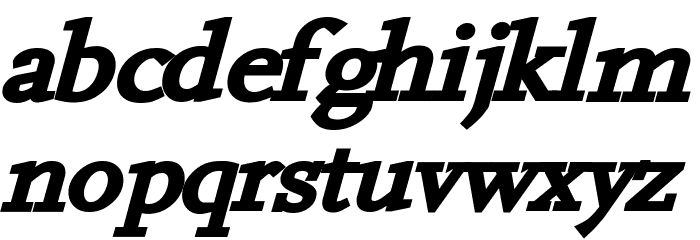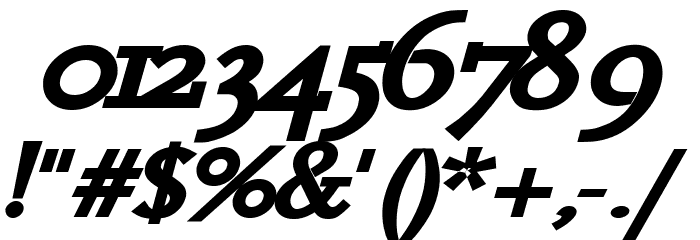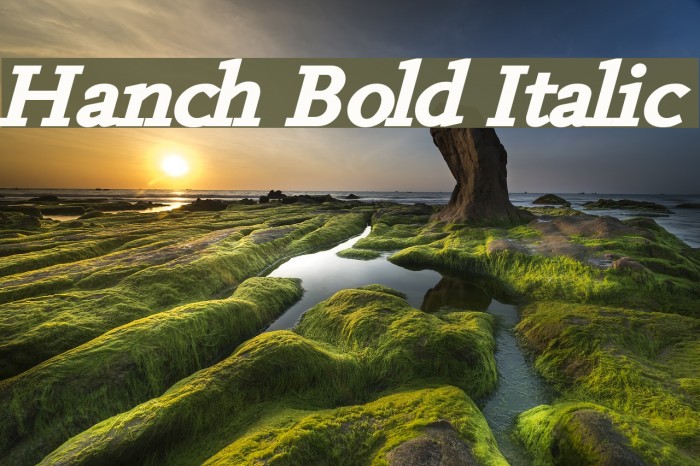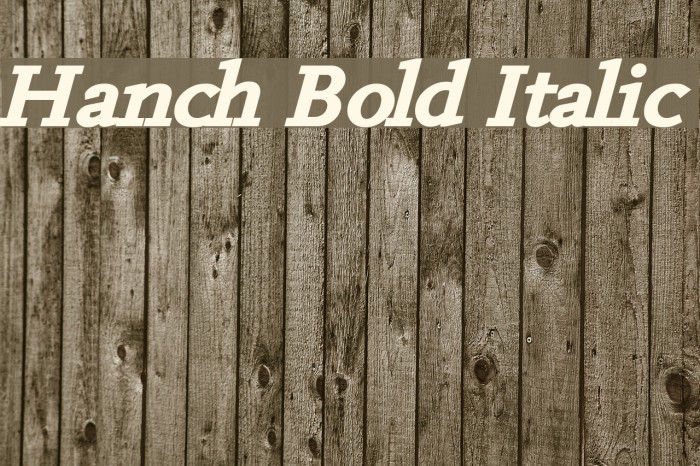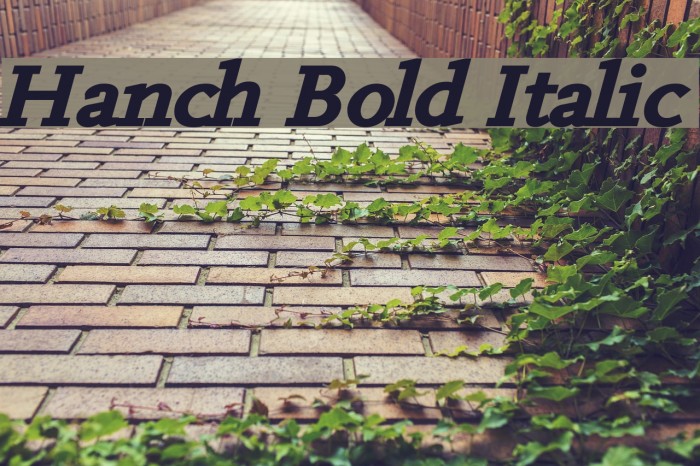
Hanch Bold Italic Font
This font features a bold and italicized style, combining strong, thick strokes with a dynamic slant. The uppercase letters are robust and commanding, while the lowercase characters maintain a consistent flow, enhancing readability. The numerals are equally bold, ensuring they stand out in any context. Special characters are designed with the same boldness, providing a cohesive look across all glyphs. The overall appearance is modern yet classic, making it versatile for various design needs.
A bold, italicized font with strong strokes and a modern yet classic appeal.
- Proposed Projects: Ideal for branding projects, headlines, posters, and any design that requires a bold statement.